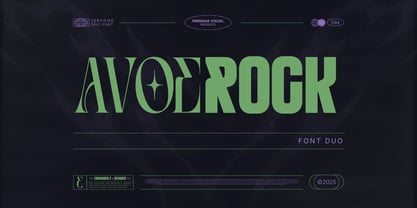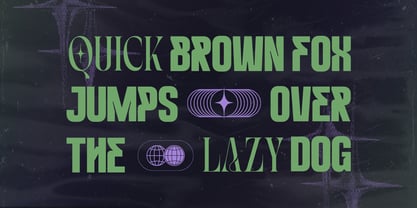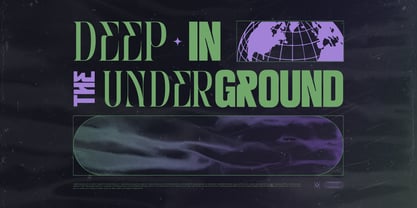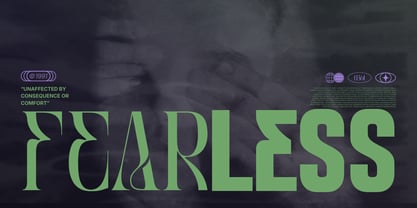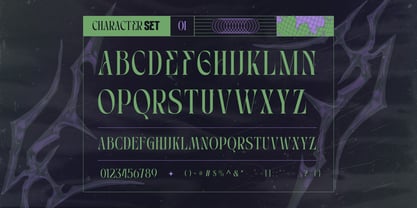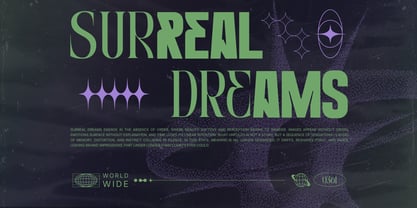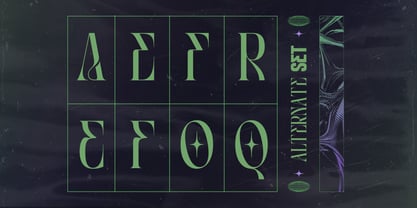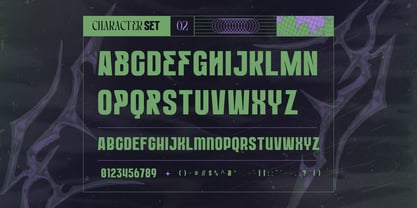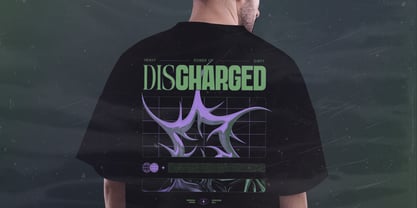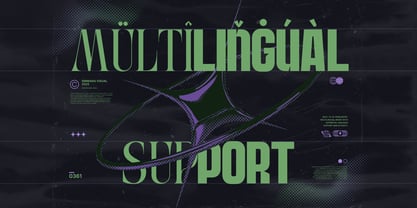
Avoerock
Die Schriftfamilie Avoerock wurde von Sigit Dwipa entworfen und von Nirmana Visual veröffentlicht. Avoerock enthält 2 Stile und Familienpaketoptionen. Mehr über diese Familie
Avoerock is a bold font duo that blends expressive serif character with clean, modern sans for a powerful display-driven design system. Built for impact, Avoerock delivers strong contrast and visual hierarchy, making it ideal for logos, branding, streetwear graphics, posters, headlines, and editorial layouts. The serif brings attitude and personality, while the sans adds balance and versatility. Designed to stand out in modern culture-led visuals, Avoerock is perfect for brands that want to feel confident, edgy, and unmistakably original.